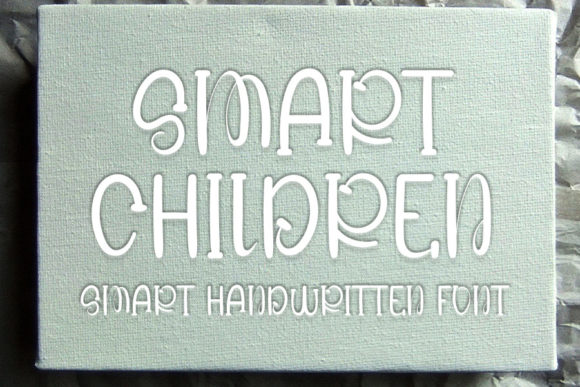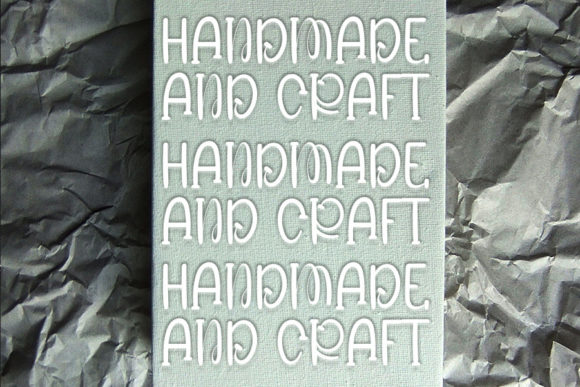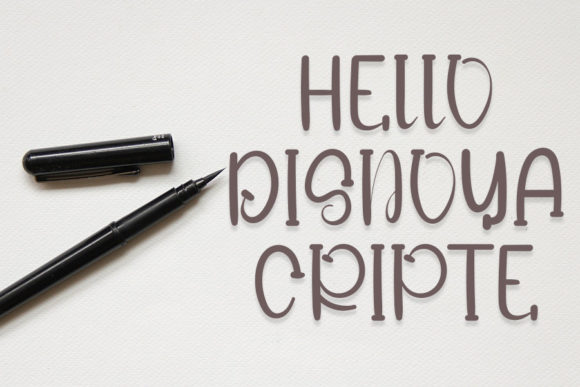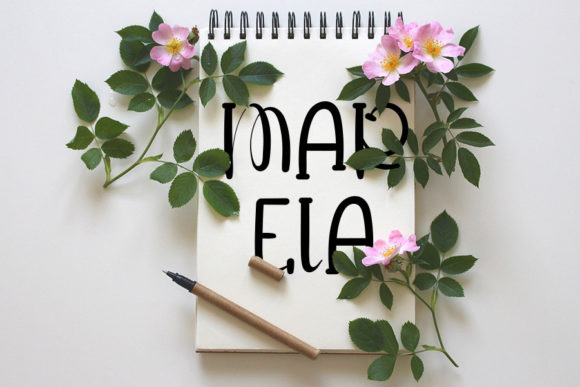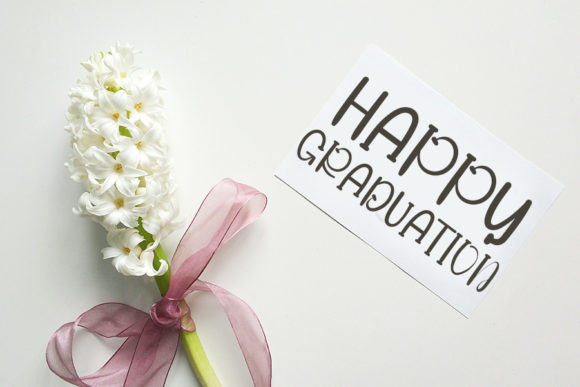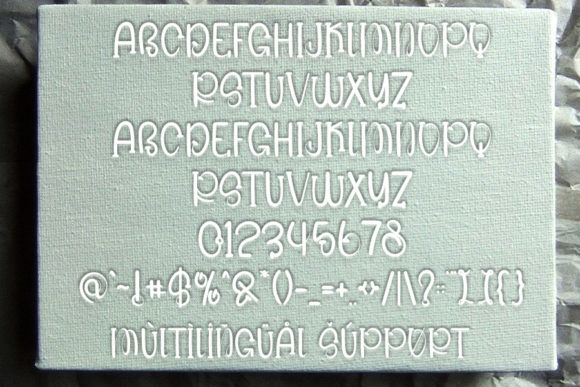
Smart Children Font
About Smart Children Font
Smart Children is a beautiful and refined handwritten font that exudes a sense of class, elegance, and modernity. With its stylish and well-crafted letterforms, this font is a versatile choice for a wide range of design projects. Whether you’re working on logos, branding materials, invitations, stationery, wedding designs, social media posts, or any other creative endeavor, Smart Children is sure to make a statement.
The font’s clean and sophisticated appearance lends itself well to creating professional and polished designs. The carefully designed letterforms have a contemporary flair, making them suitable for both traditional and modern applications. Whether you’re aiming for a minimalist aesthetic or a more elaborate and decorative design, Smart Children can adapt to various styles and purposes.
Smart Children is particularly well-suited for projects that require a personalized touch and a refined look. Its elegant and modern script style adds a touch of sophistication, making it ideal for high-end events, luxury brands, and upscale designs. The font’s versatility allows it to shine on both print and digital platforms, ensuring that your message stands out across different mediums.
When using Smart Children, you have the flexibility to explore its wide range of applications. From creating eye-catching logos and impactful branding materials to designing elegant invitations and stylish stationery, this font offers endless possibilities. Its well-balanced characters and smooth flow make it visually pleasing and easy to read, ensuring a pleasant reading experience for your audience.
In addition, Smart Children is PUA encoded, which means you have access to a vast array of glyphs and swashes. This allows you to add decorative elements and customize your designs further, making them truly unique and personalized.
In summary, Smart Children is a beautiful and refined handwritten font that brings a classy, elegant, and modern touch to your designs. Its versatility makes it suitable for various applications, including logos, branding, invitations, stationery, wedding designs, social media posts, and more. With its well-crafted letterforms and PUA encoding, Smart Children provides you with the tools to create stunning and personalized designs that leave a lasting impression.